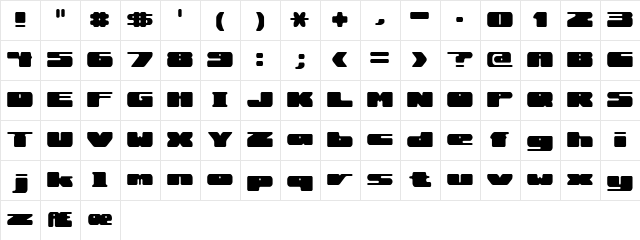
Rotund (BRK) Regular Free Font
Rotund (BRK) Regular
Design Context for Rotund (BRK)
Rotund (BRK) is a composed and adaptable typeface that performs quietly and consistently across a wide range of design contexts.